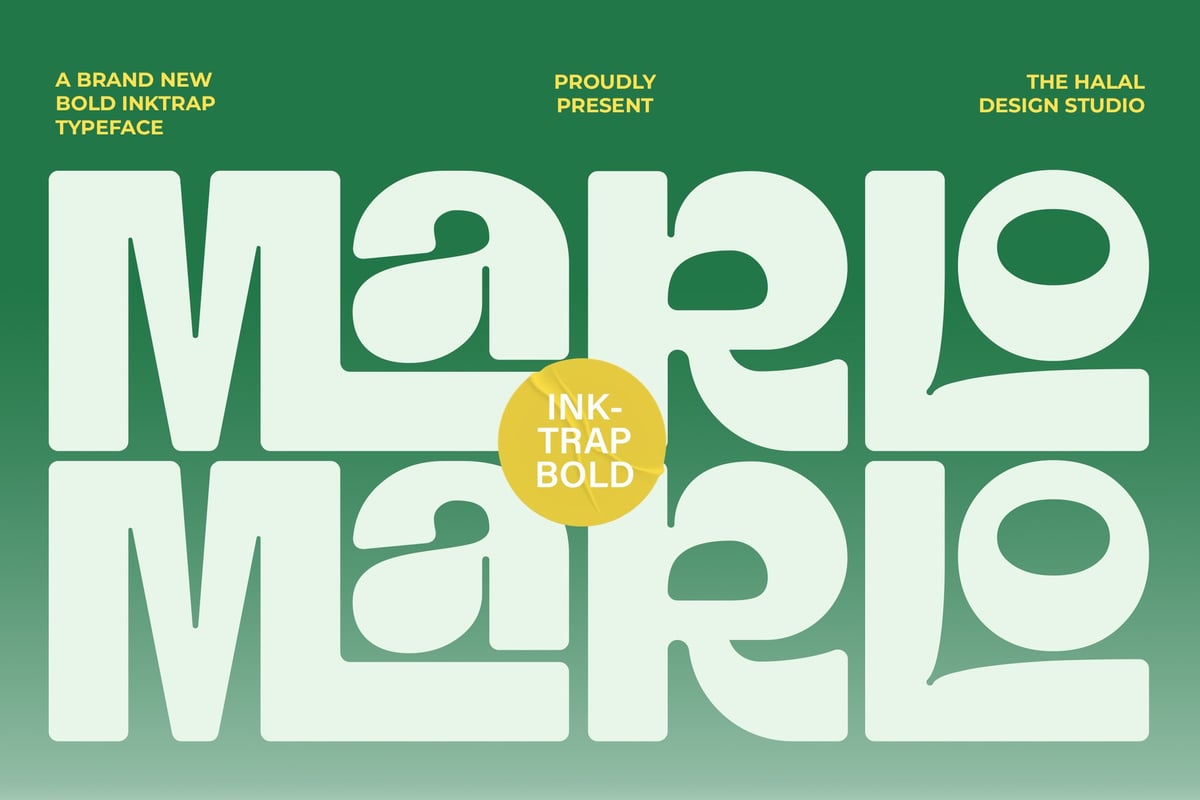
Marlo - Bold Inktrap Typeface
Marlo is a bold ink trap typeface built to make your designs impossible to ignore.
With chunky letterforms, distinctive ink trap cutouts, and a contemporary edge, Marlo delivers powerful visual impact across both print and digital applications. Whether you're crafting a standout brand identity, a striking poster, or eye-catching social media graphics, this typeface strikes the perfect balance between personality, readability, and versatility.
Marlo is ideal for:
- Branding and logo design
- Posters and packaging
- Headlines and editorial layouts
- Social media graphics and promotional materials
Designed with creative flexibility in mind, Marlo includes stylish ligatures and alternates to elevate your typographic compositions, along with multilingual support for global projects.
- Bold ink trap style with modern, chunky, expressive letterforms
- Ligatures and alternates for enhanced typographic flexibility
- Multilingual language support